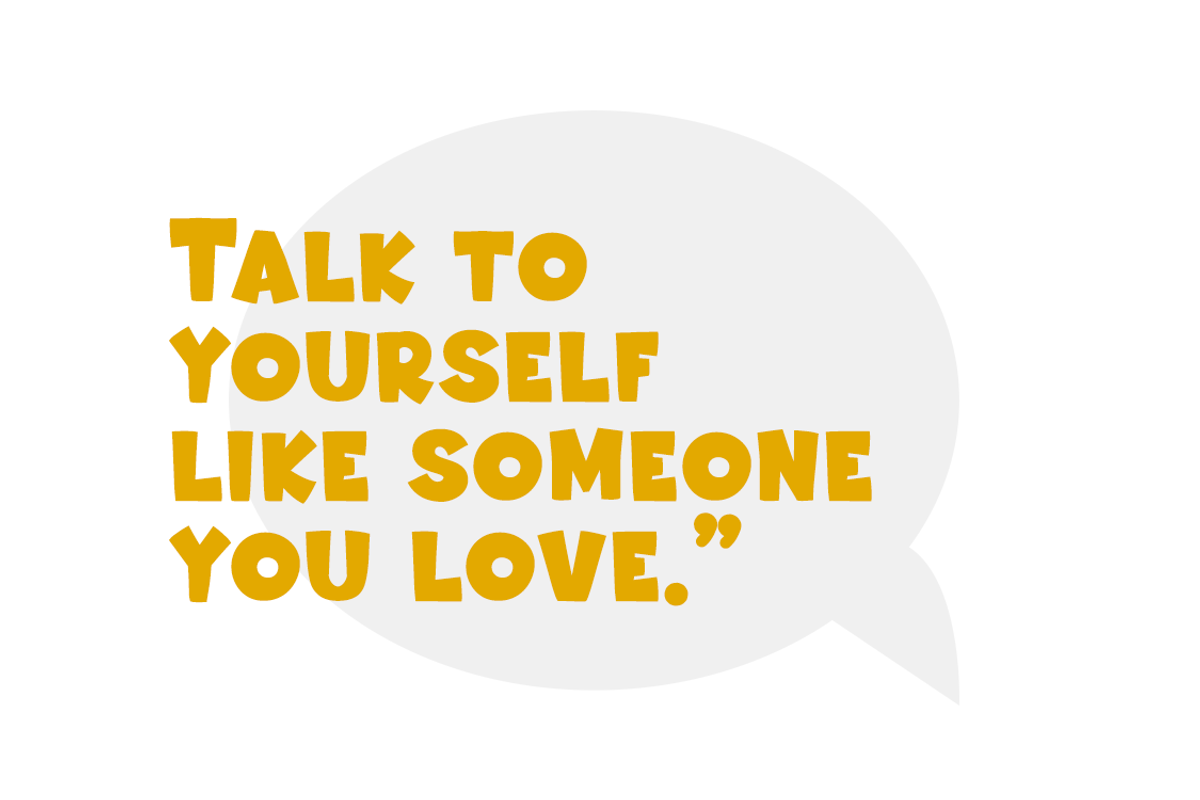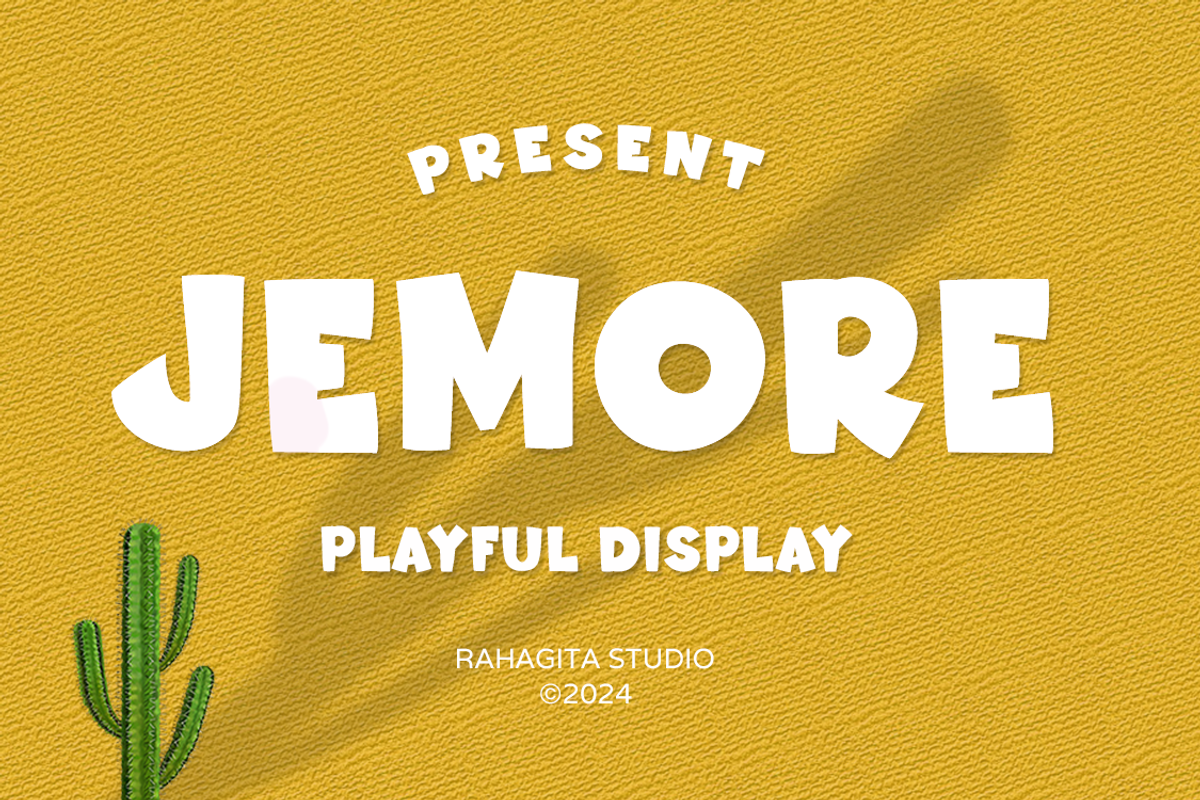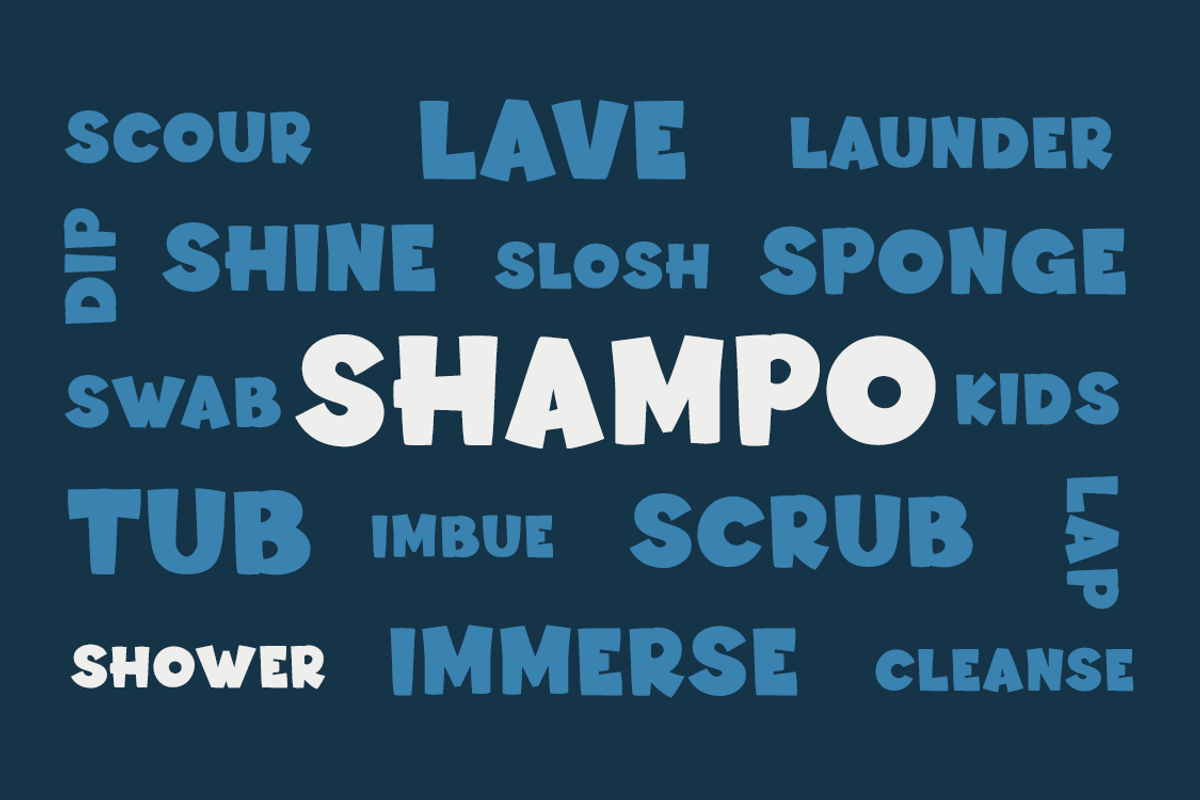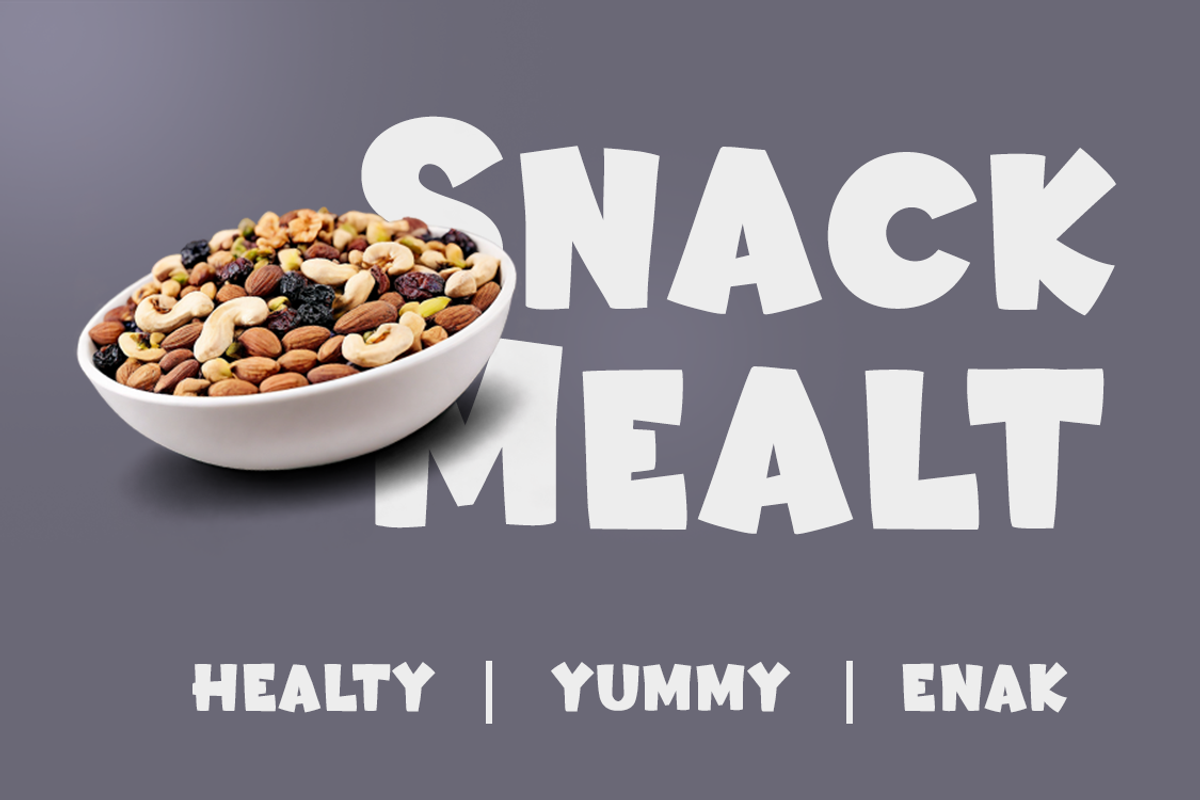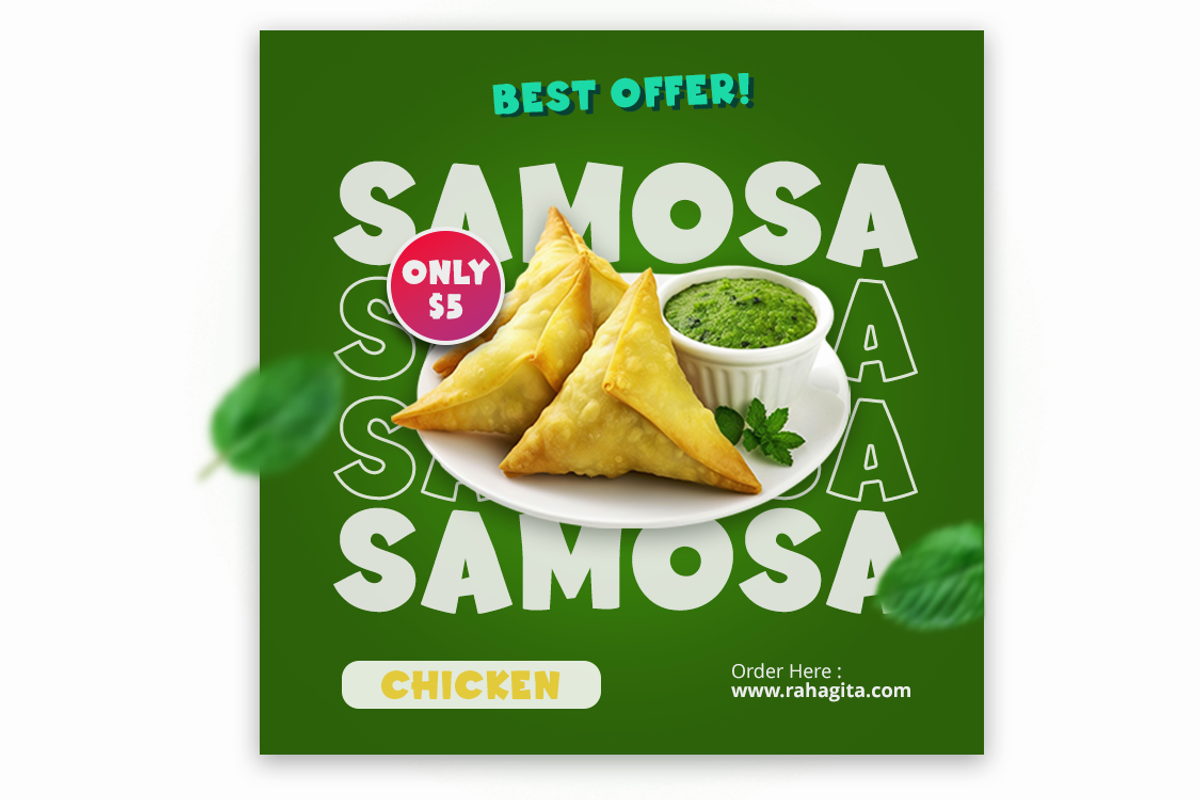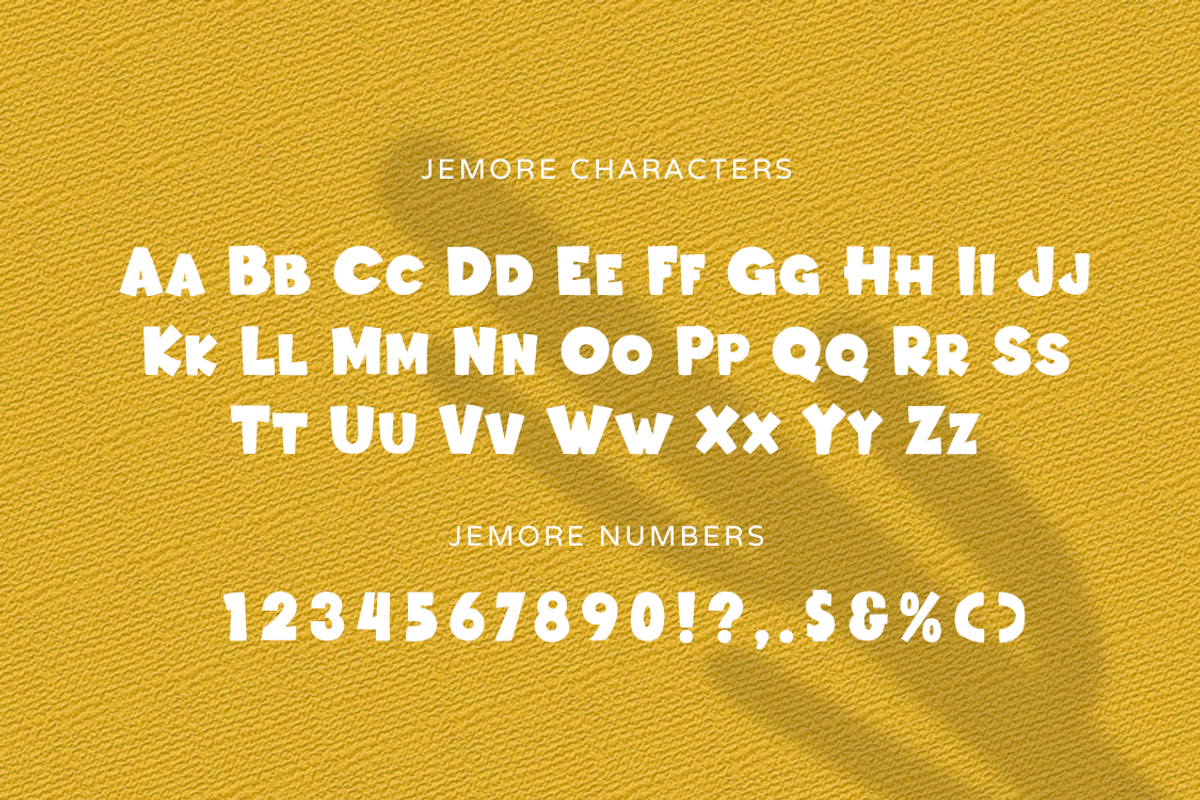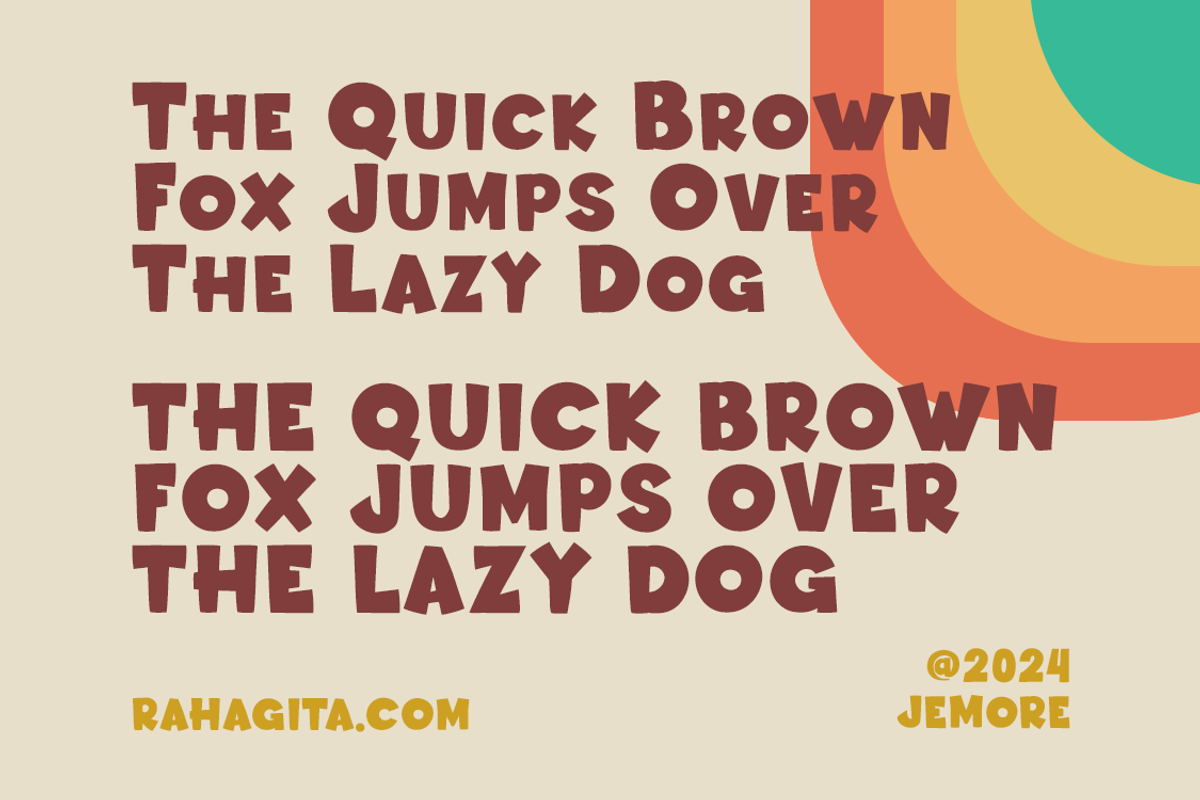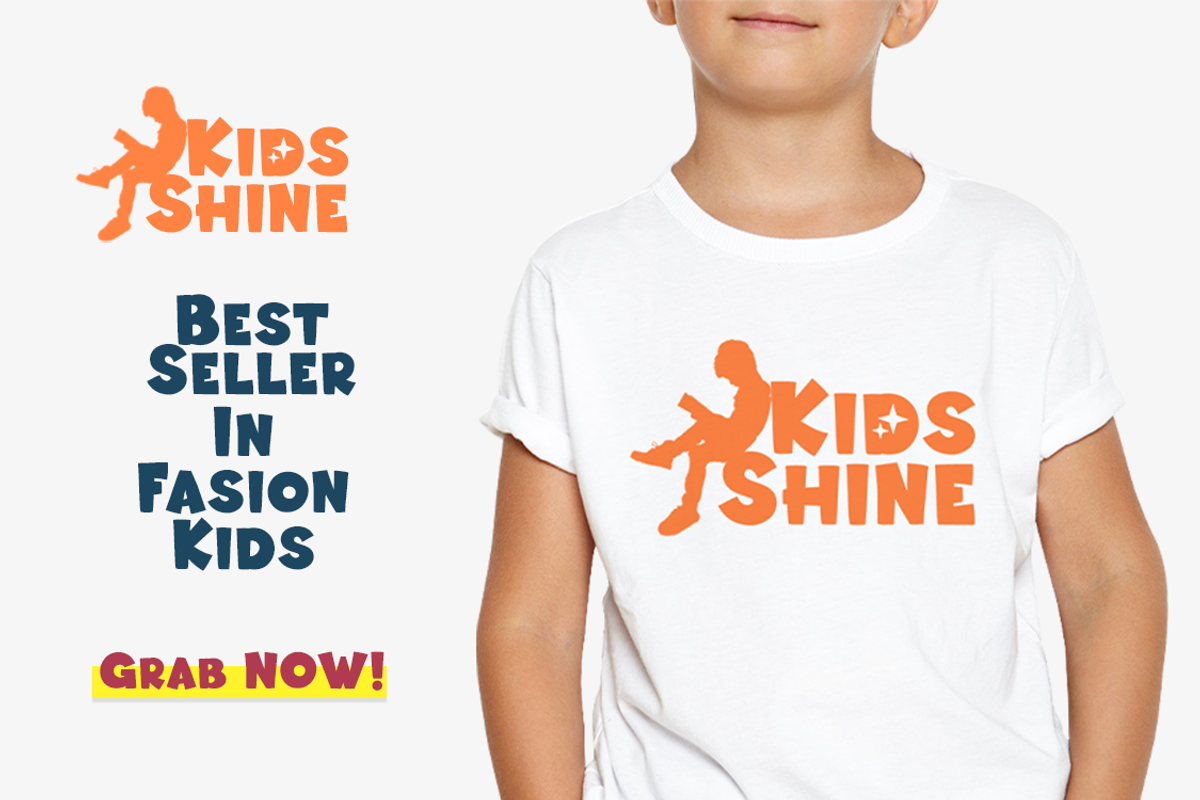
Jemore
Bring a burst of joy and nostalgia to your designs with Jemore, a playful bold display font that combines a classy retro vibe with a youthful, joyful spirit. Perfect for kids’ projects, packaging design, book titles, logos, flyers, branding, banners, crafting, and invitations, Jemore adds a fun and lively touch to any creative work. Its vibrant and cheerful style ensures your designs stand out, making them both eye-catching and memorable. Ideal for both digital and print, Jemore is your go-to font for adding a playful flair to any project.